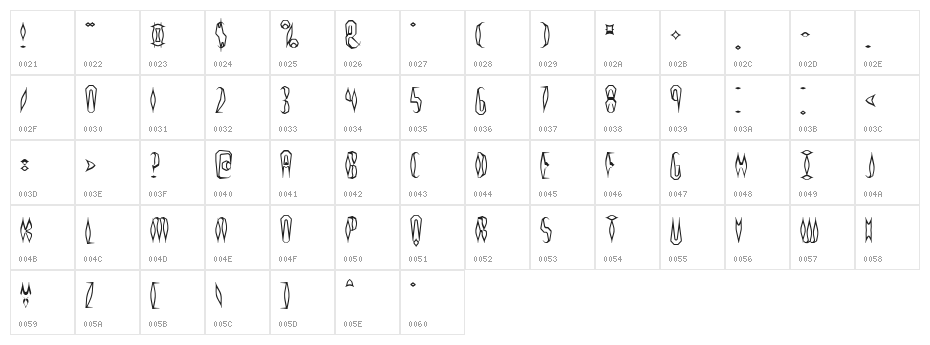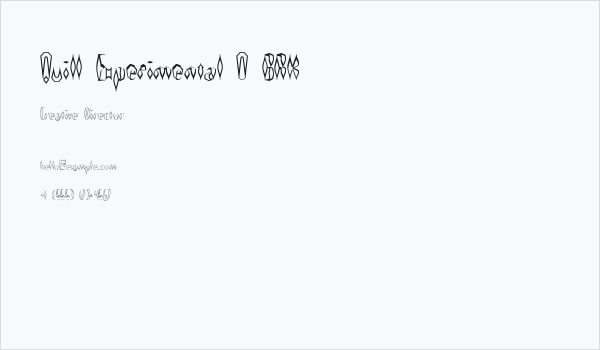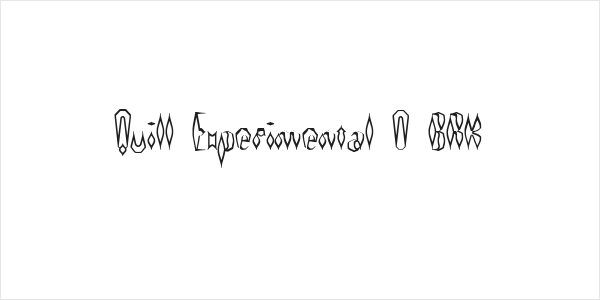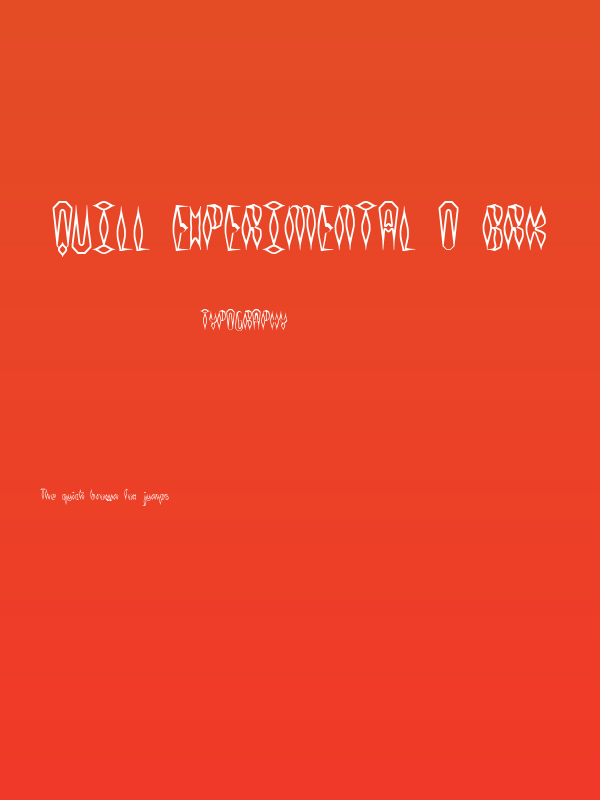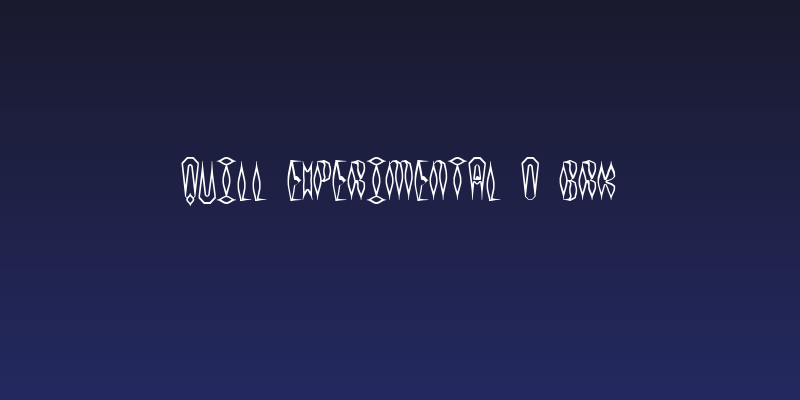
Quill Experimental O BRK Font
This font features a highly decorative and experimental design, characterized by sharp, angular lines and intricate detailing. The uppercase and lowercase letters exhibit a unique blend of geometric and organic shapes, creating a visually striking appearance. The numerals and special characters maintain this theme, with each character presenting a distinct and artistic form. The overall aesthetic is bold and unconventional, making it suitable for projects that require a standout, artistic touch.
Proposed ProjectsIdeal for artistic projects, album covers, posters, and any design requiring a bold, unique typeface.